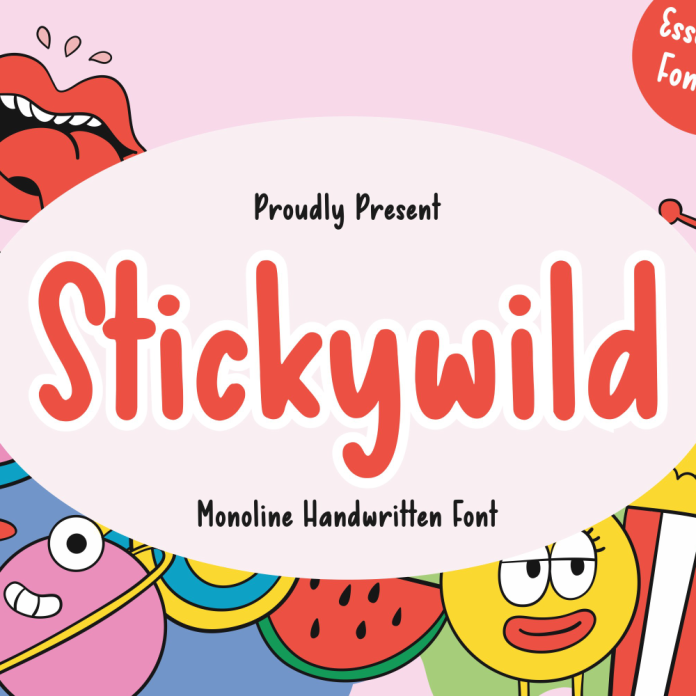
Stickywild is a Fun Handwritten Font. best for feminine crafty projects or SVG design businesses, Wedding Craft, Farmhouse decor and Crafts, logos, Branding, Marketing Materials, Social media graphics, or shirt design. this Font Include - upper characters A-Z Lowercase a-z - numbers 0-9 - punctuation - Western European Language